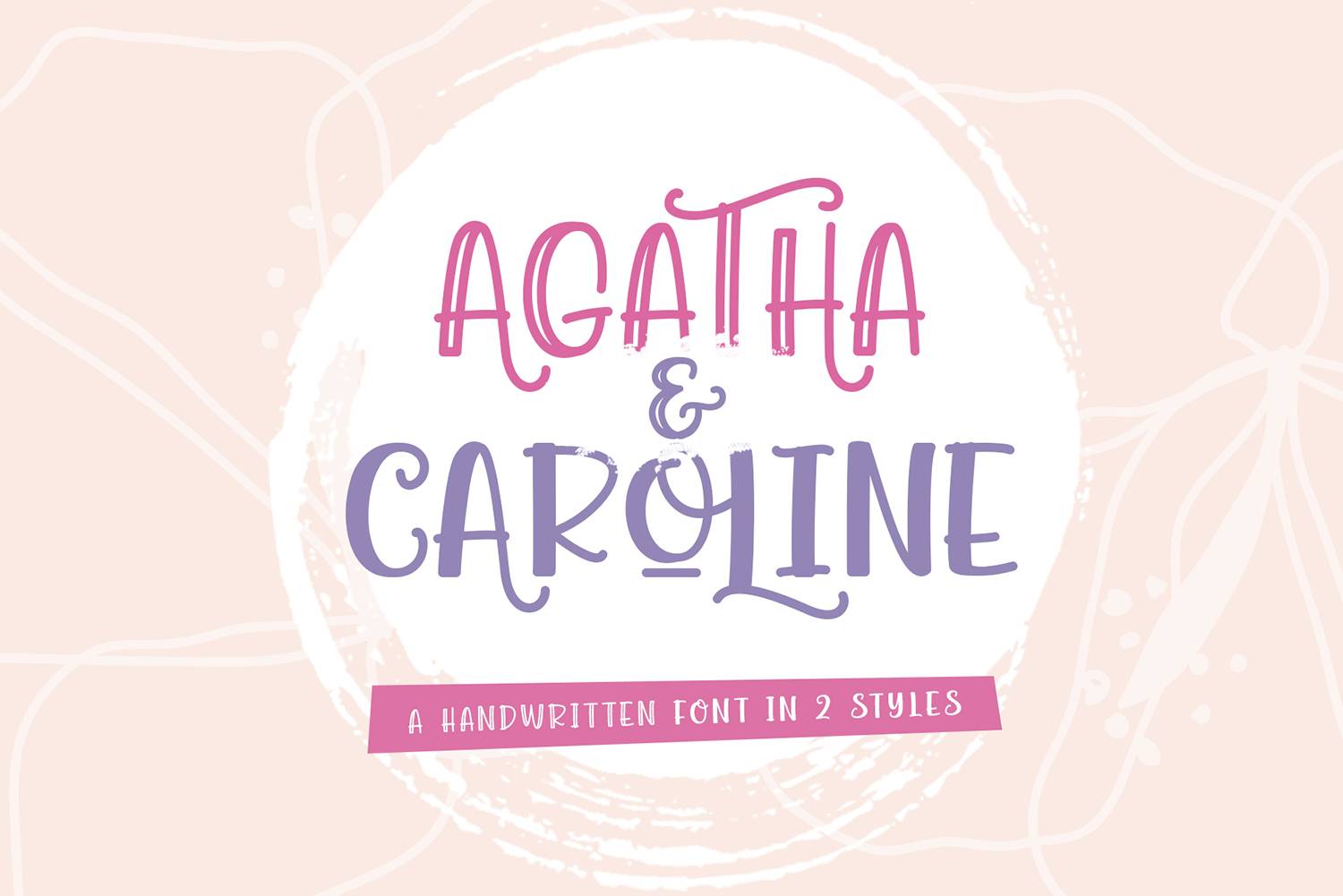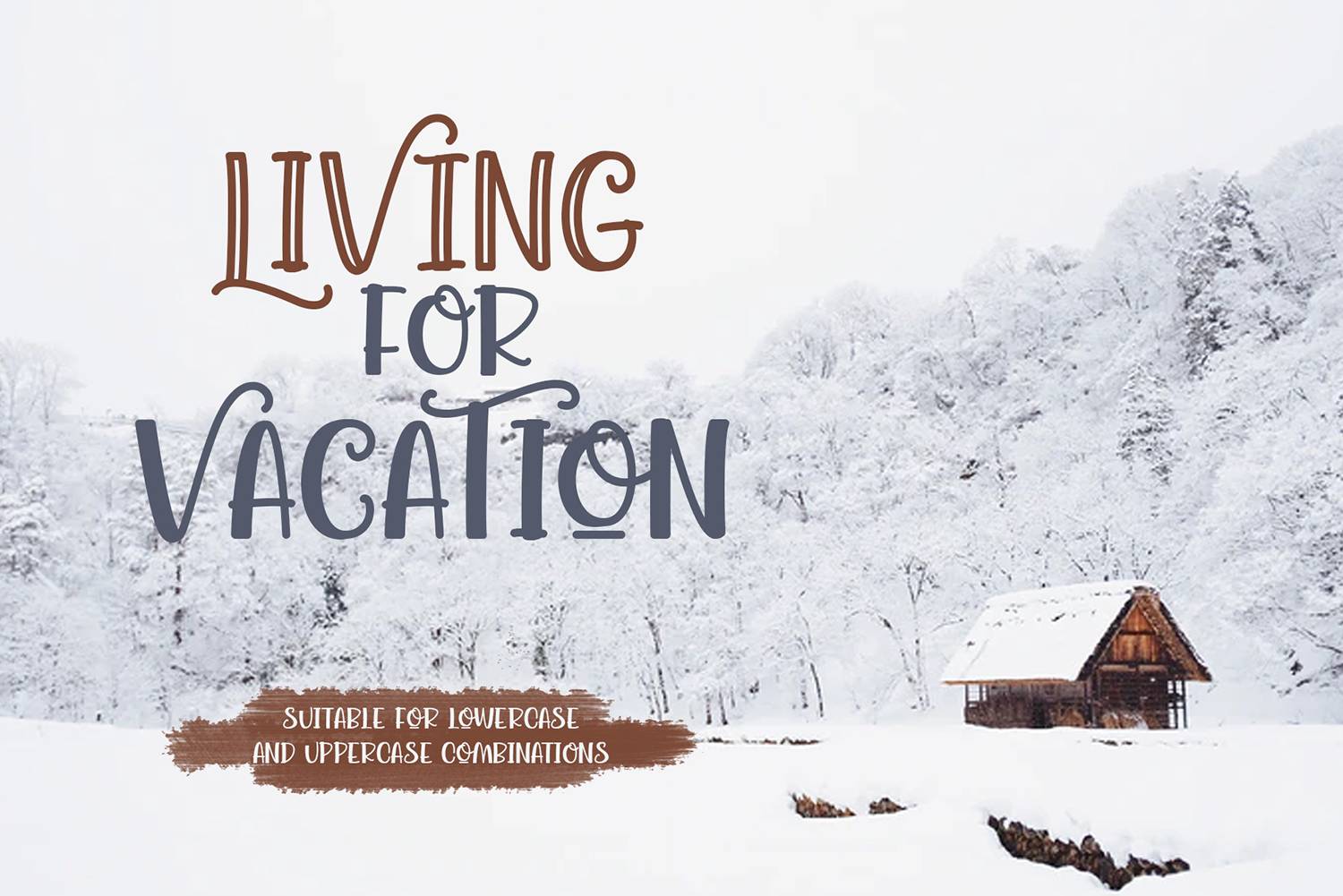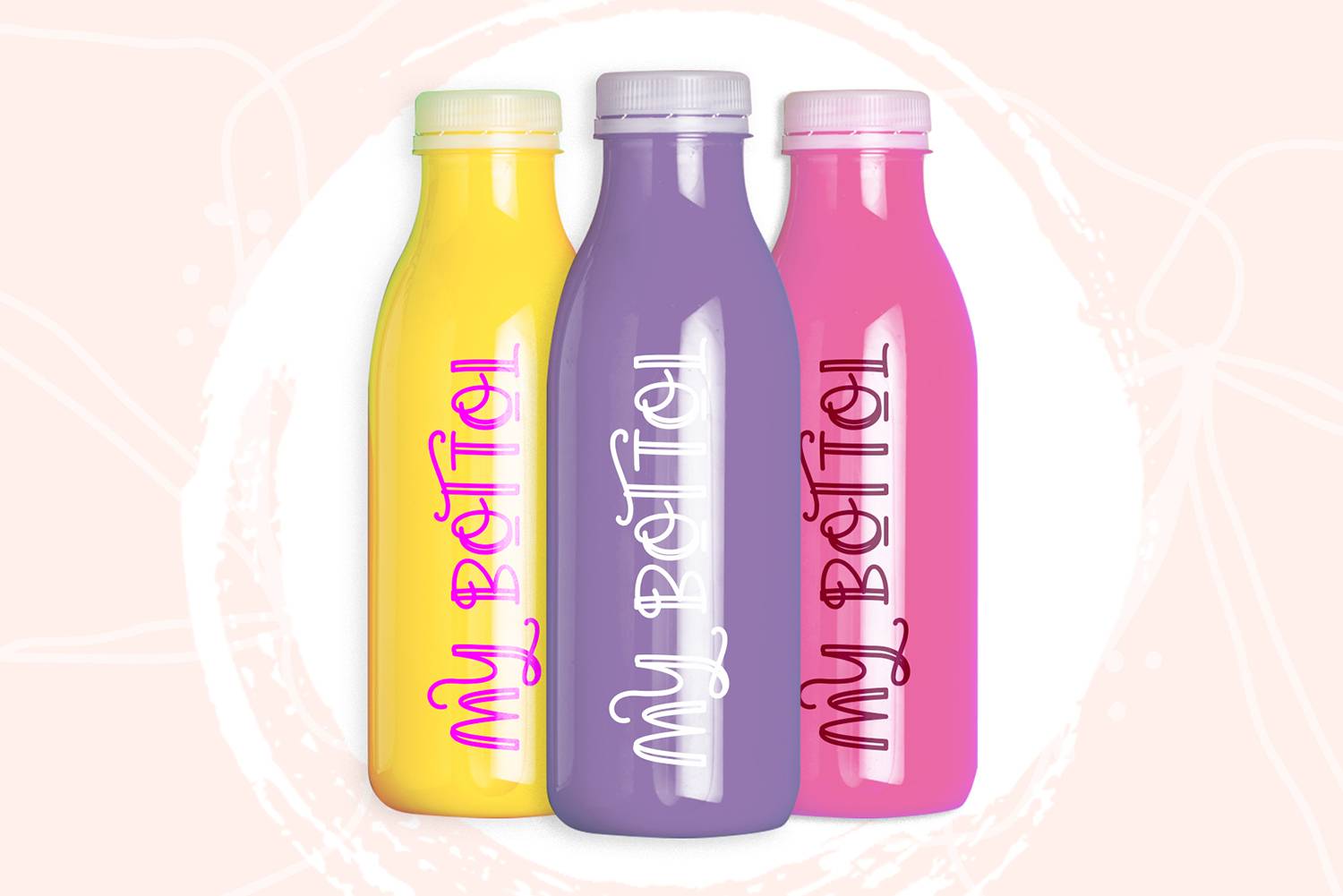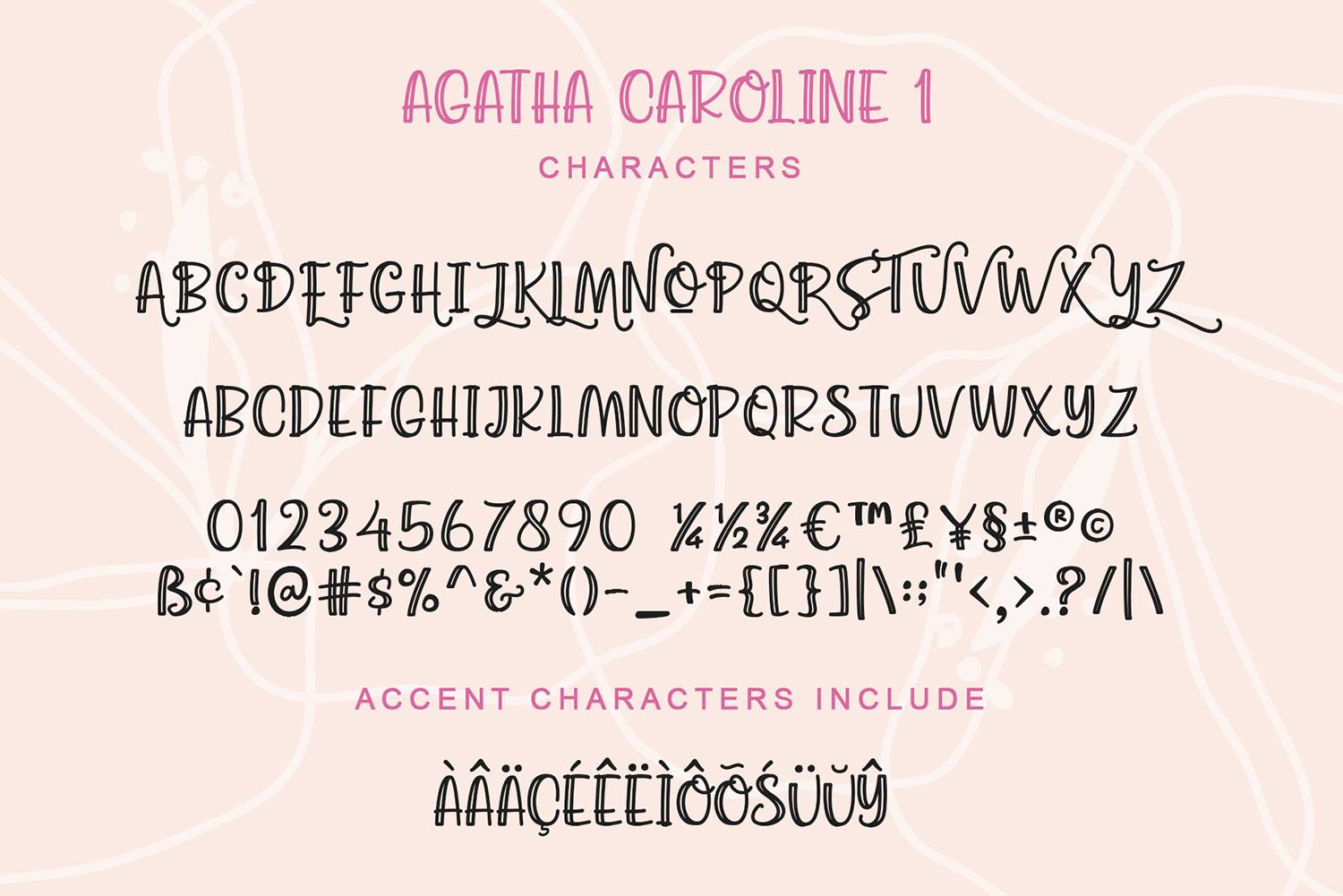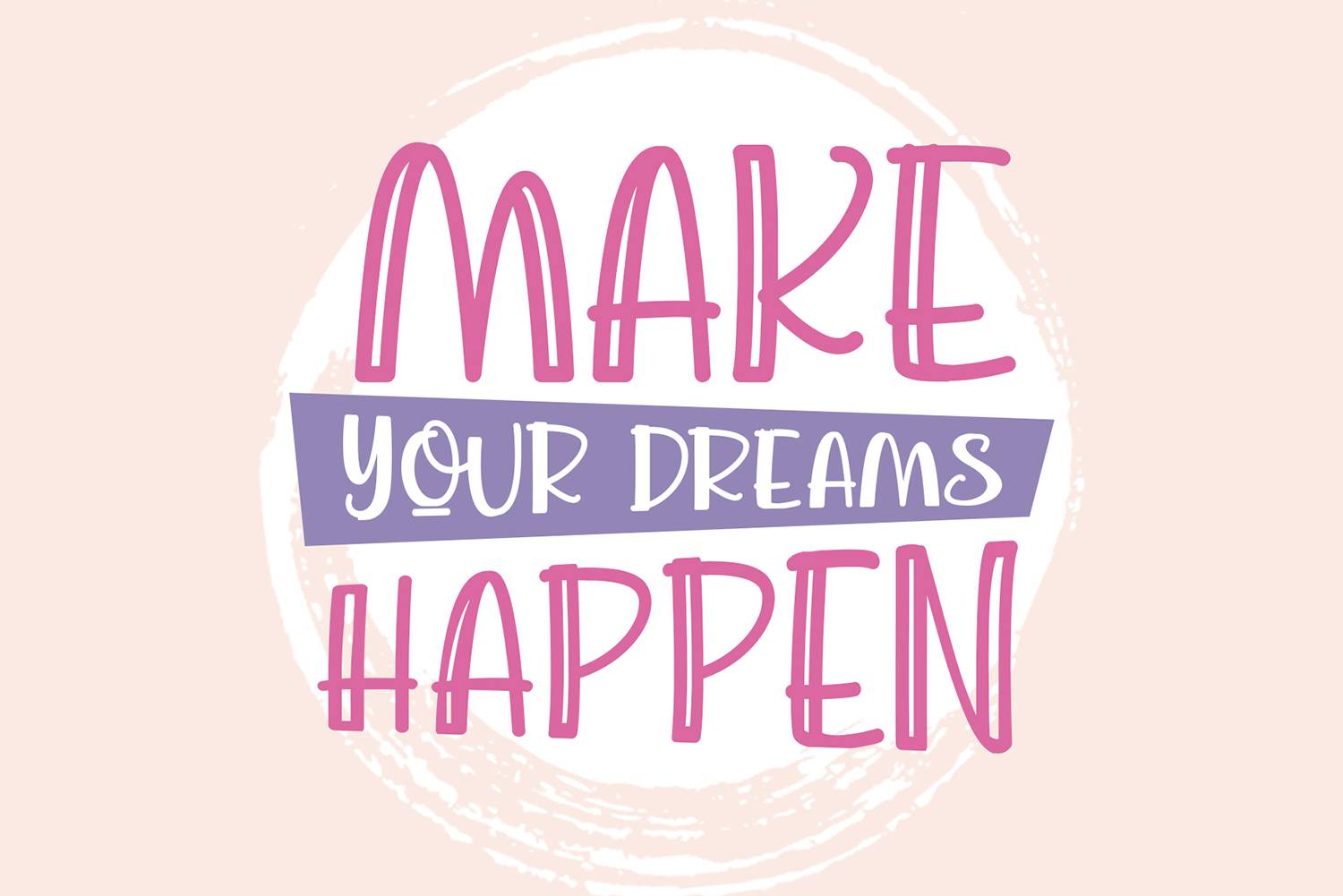
Agatha Caroline is a playful and lighthearted sans serif font with a hand-drawn feel, featuring tall, narrow letterforms with whimsical swirls and curls that add charm and personality. Its consistent stroke weight and casual style make it ideal for creative projects, kids' content, or informal branding where a friendly and approachable tone is desired. This font works well in logos, invitations, and headlines that benefit from a unique, decorative touch without sacrificing readability.
Agatha Caroline Font
About Agatha Caroline Font
| Font family | Agatha Caroline Font |
| Designer | Rizaldi Wandani |